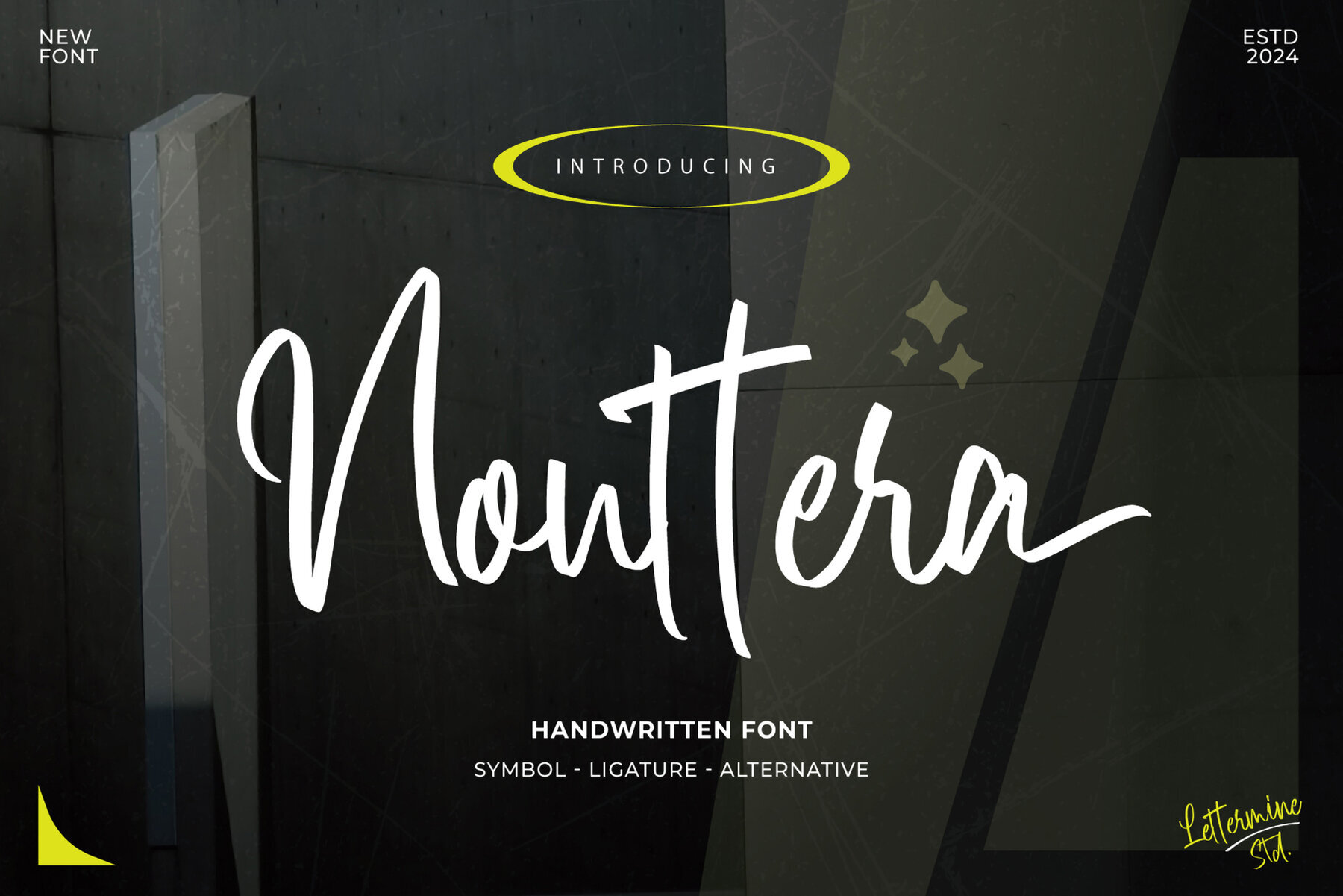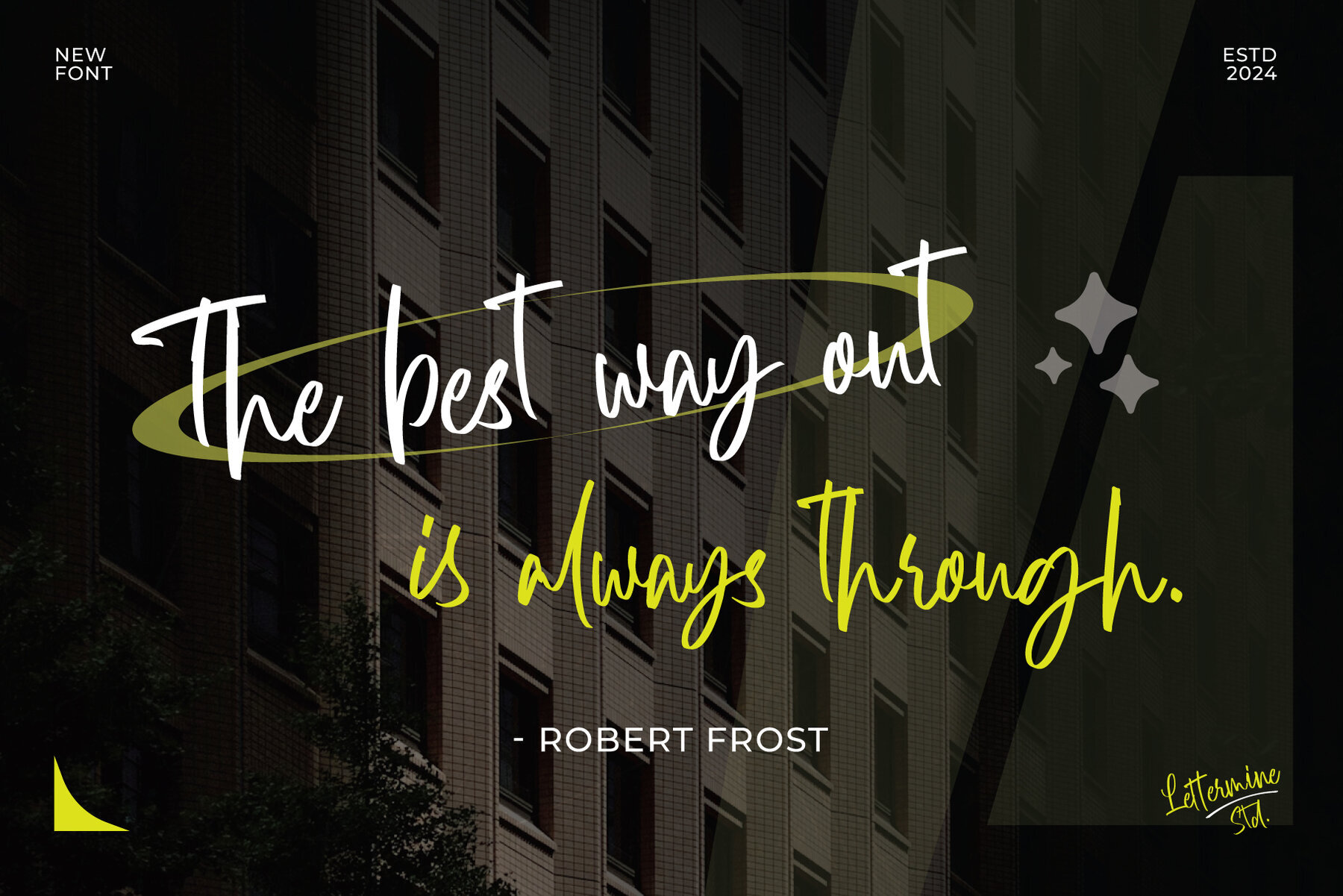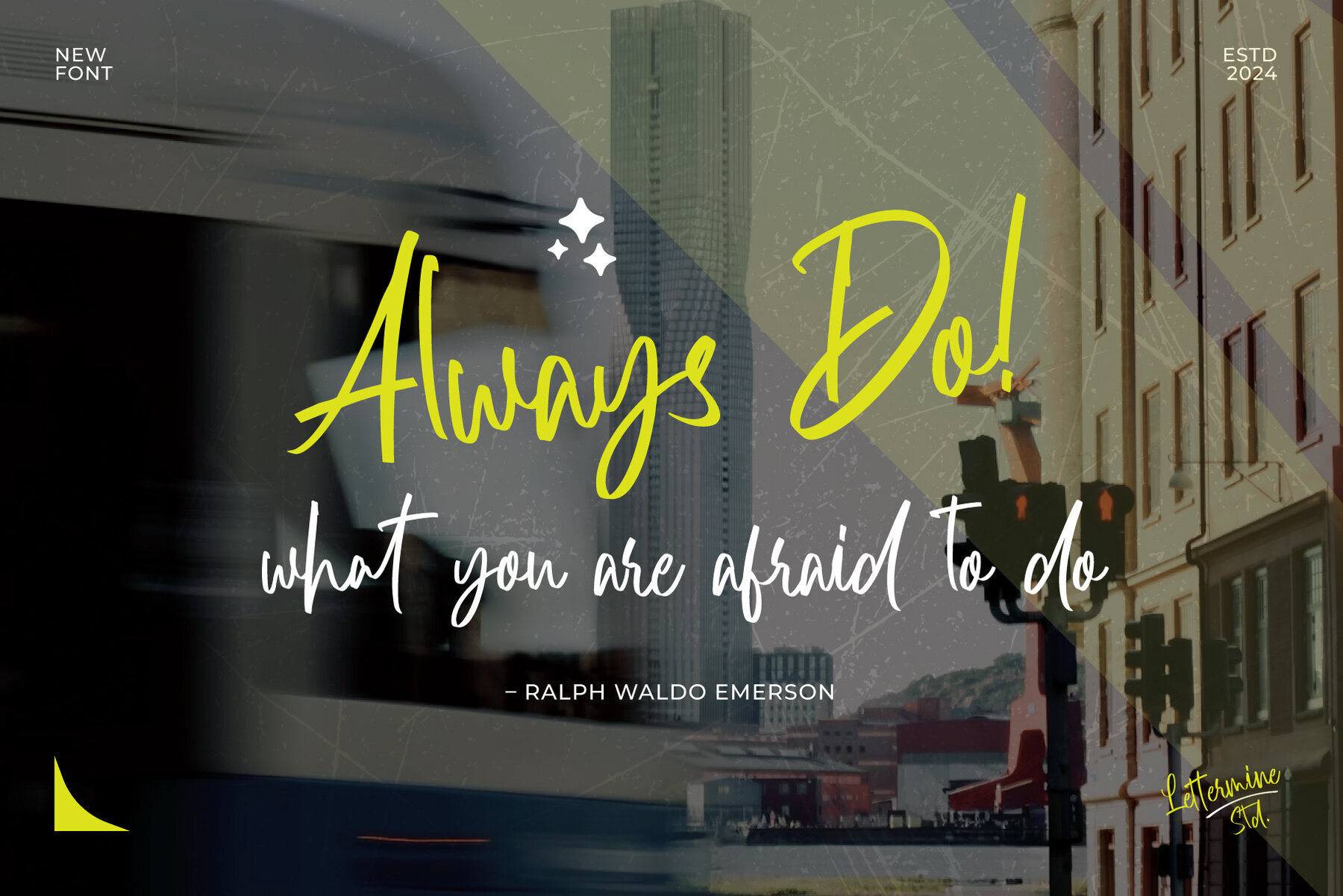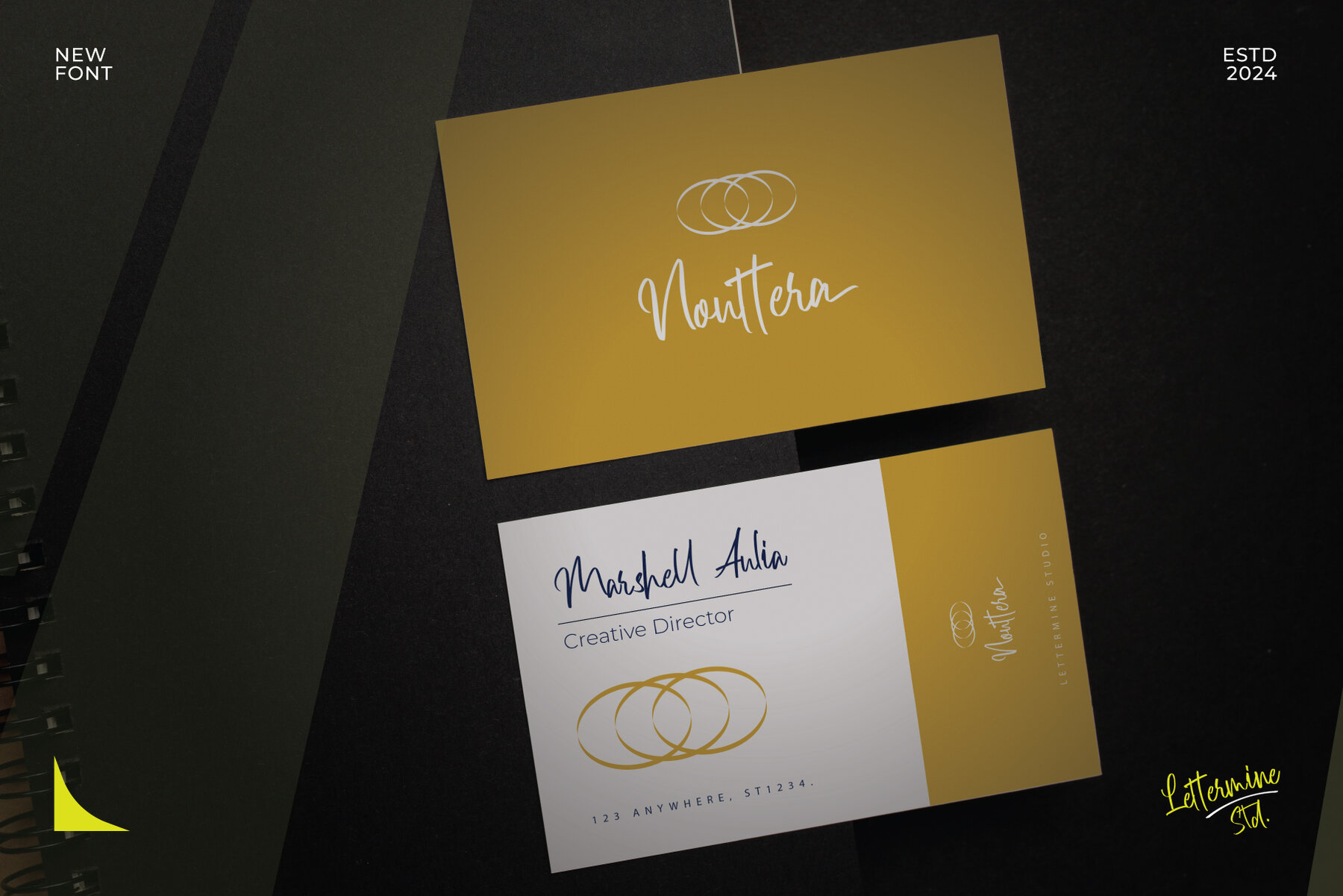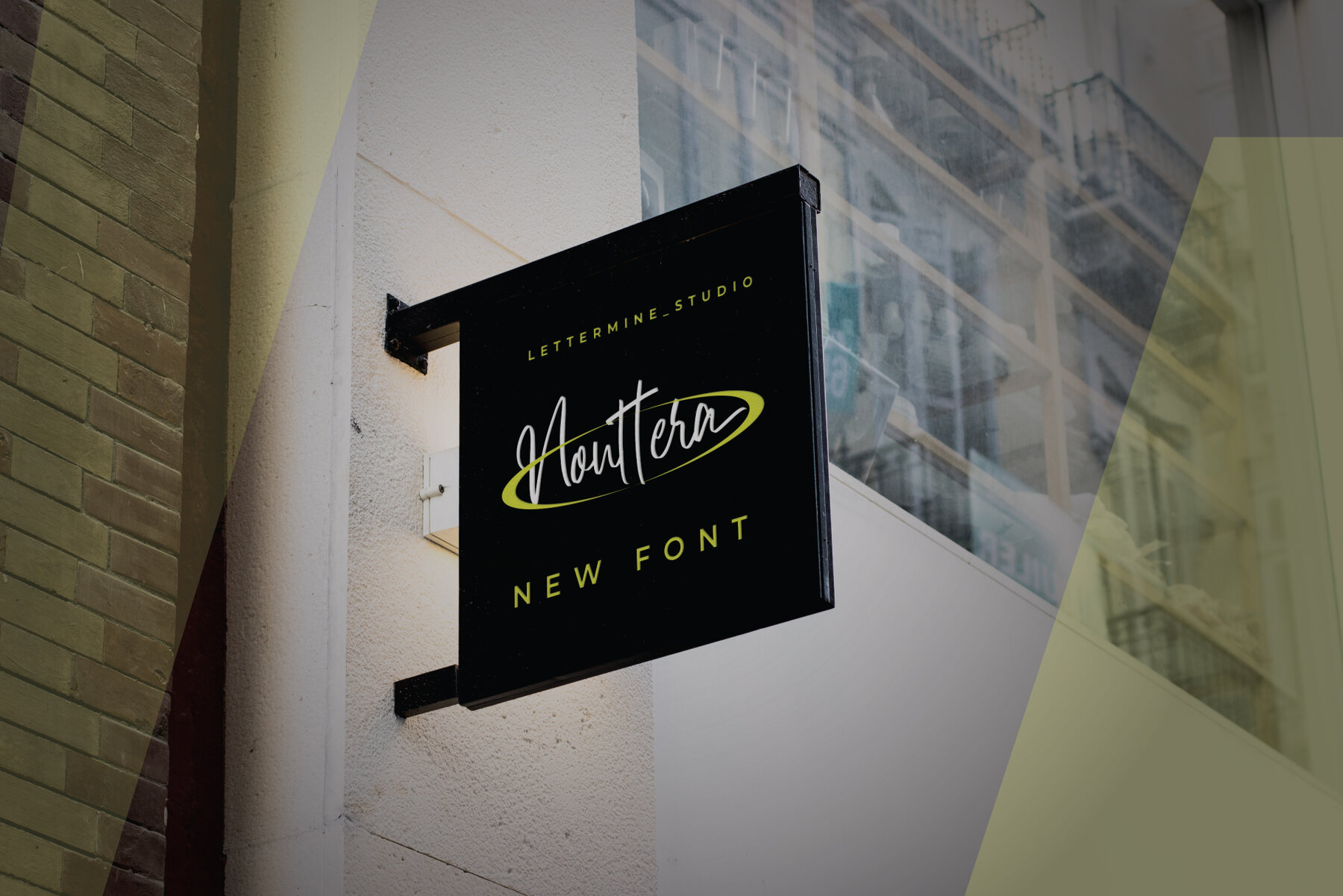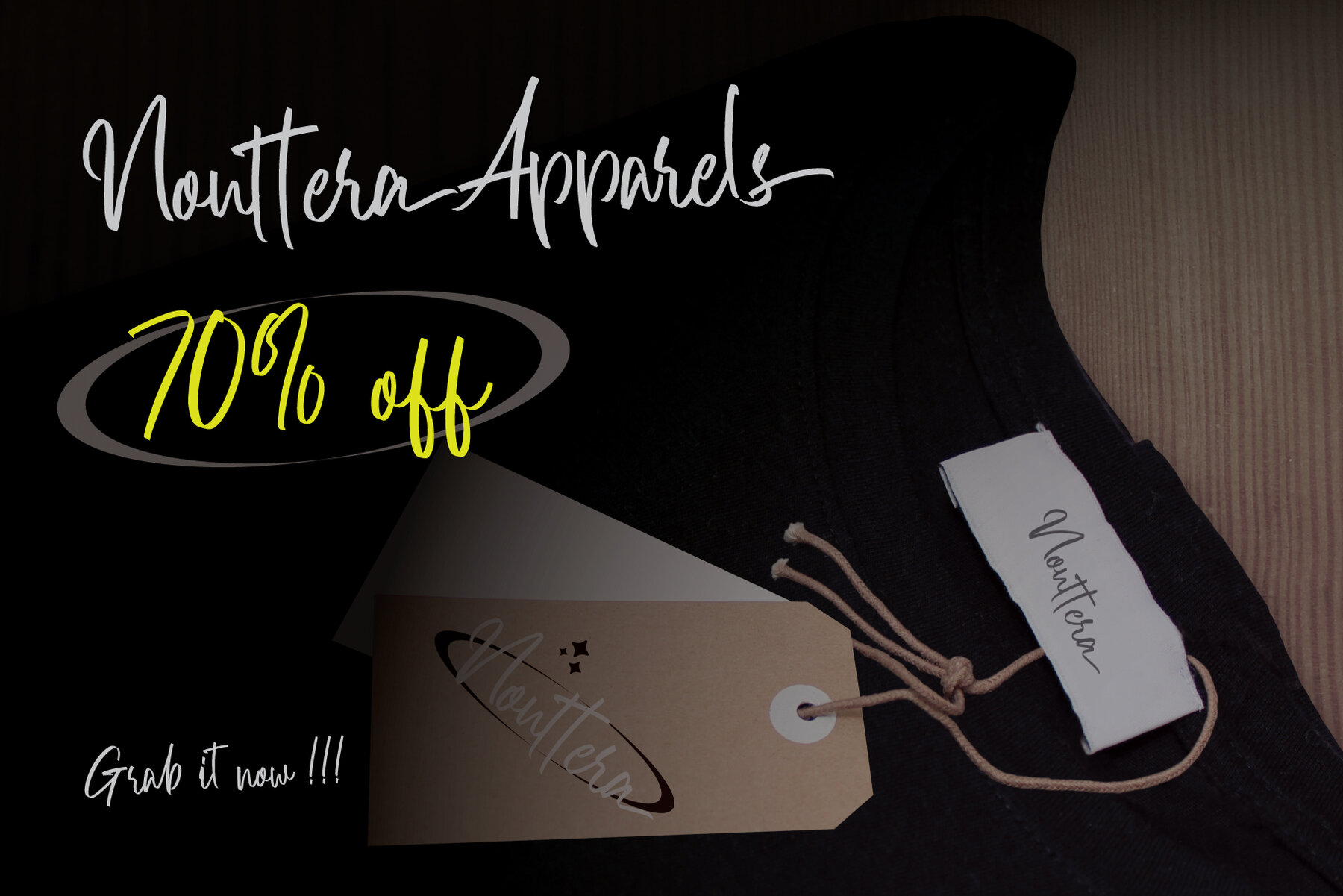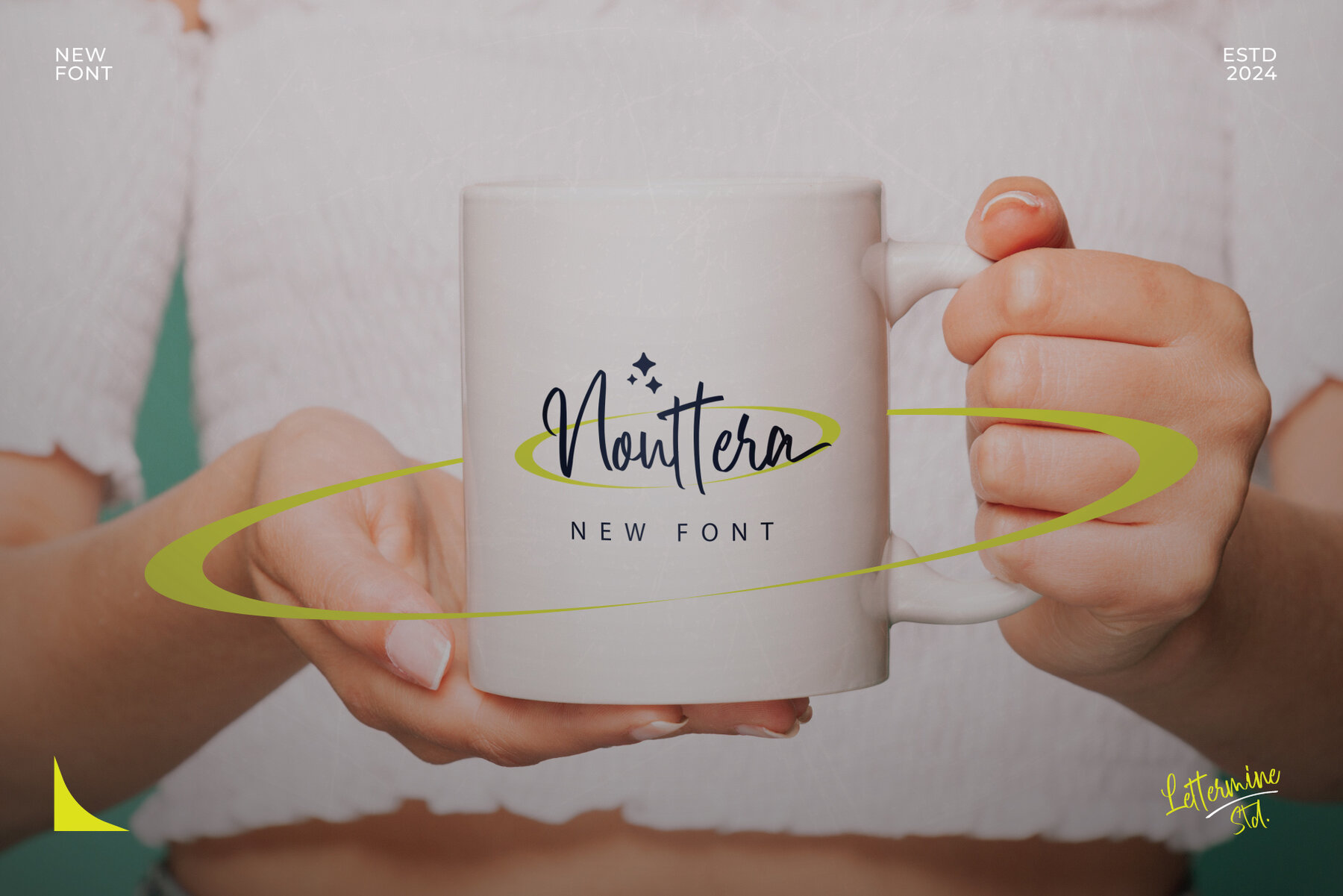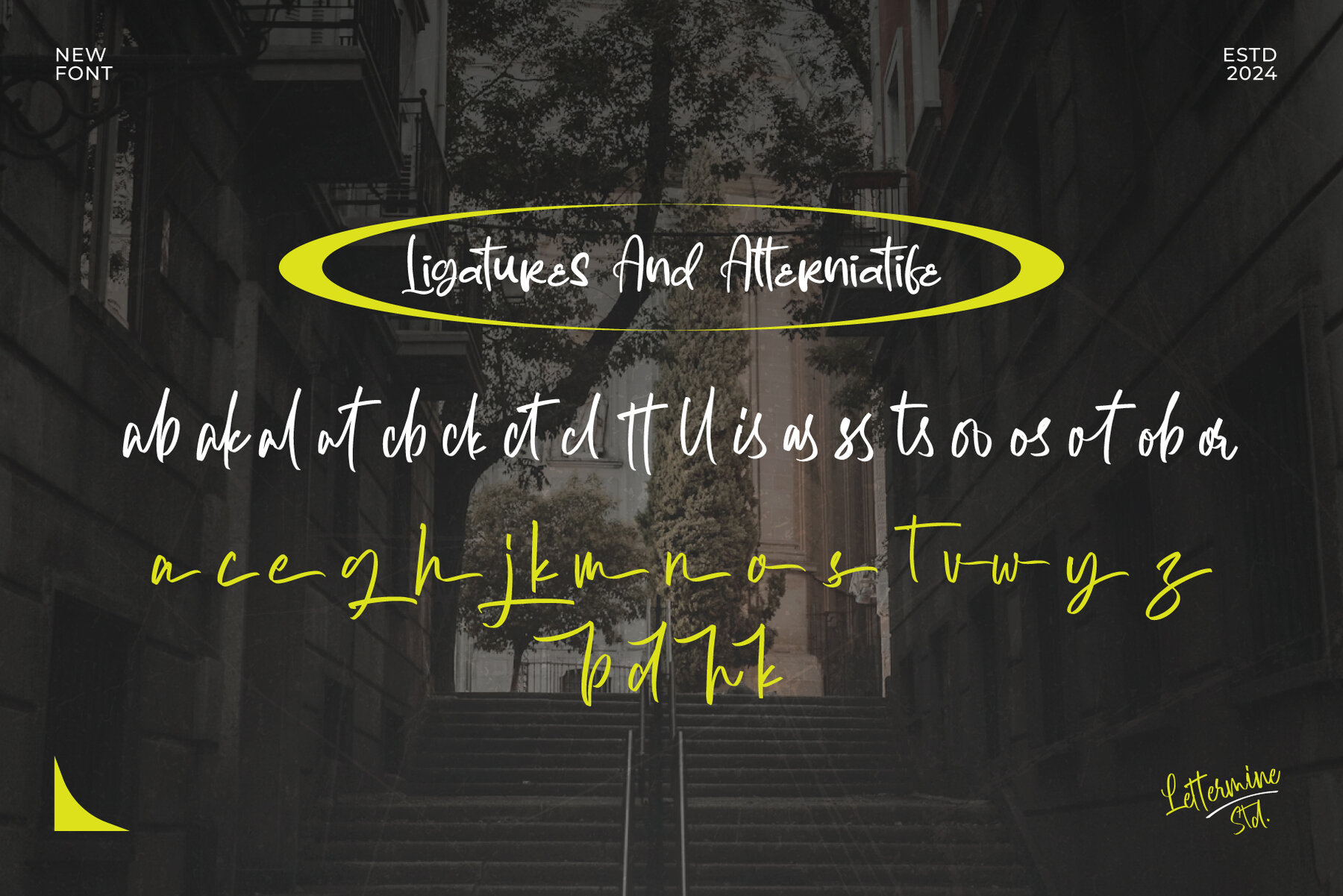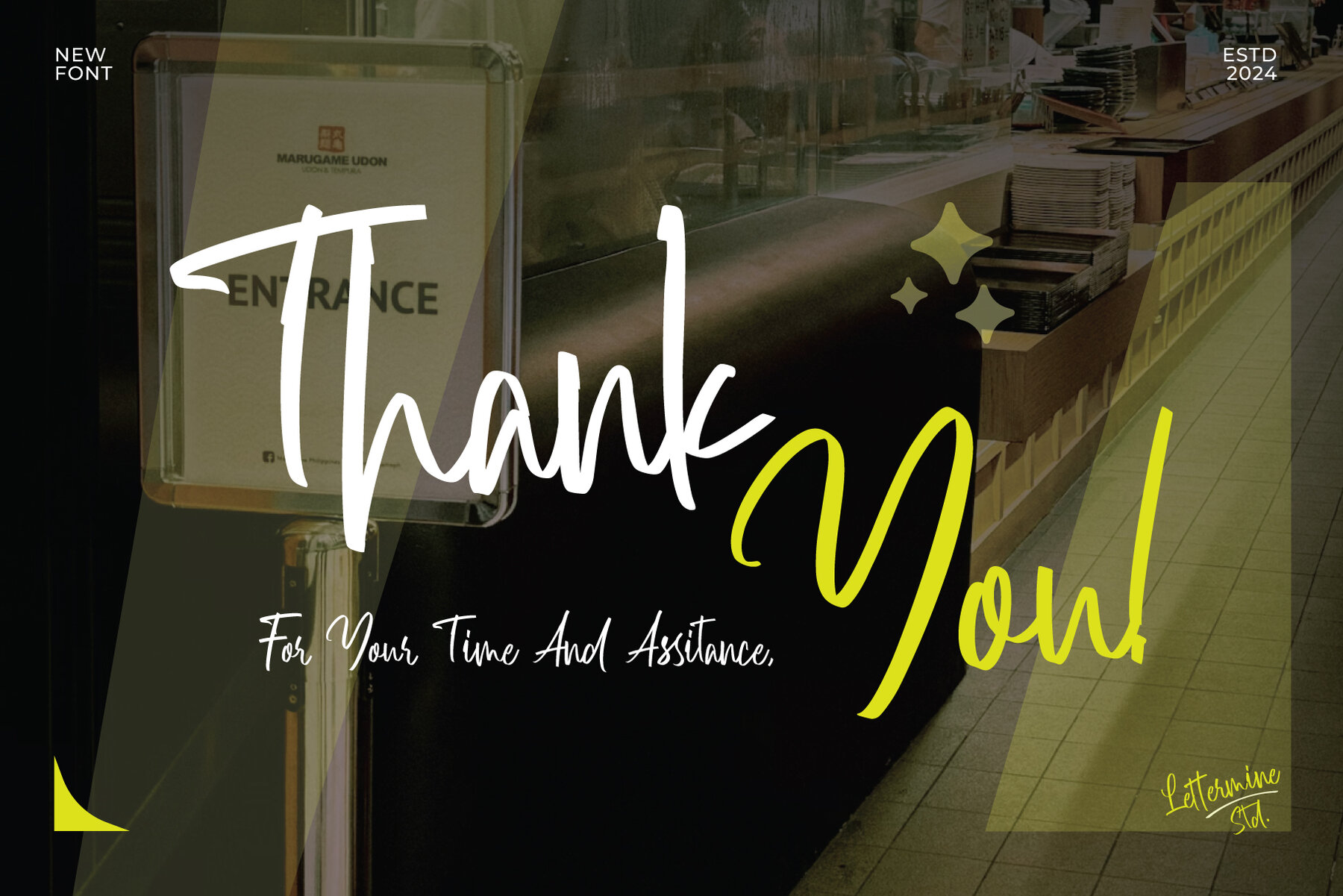
Nouttera Font
Nouttera Regular
Nouttera is a captivating brush script font designed to infuse creativity and passion into every project. Each letter features an authentic, hand-drawn charm that brings a dynamic and personal touch to your designs. Its bold, graceful curves create an expressive atmosphere that’s perfect for making a lasting impression. Whether you're working on a formal or casual design, this font's versatility allows for seamless integration and exceptional results.
Key features of Nouttera include versatile lettering where uppercase and lowercase letters naturally flow together, providing a blend of bold expression and soft, natural brush style. The multilingual support ensures inclusivity for global projects, expanding the reach of your creative work. With ligatures for seamless letter connections and alternative characters for added uniqueness and flair, Nouttera offers endless creative possibilities. Incorporate this vibrant script into your designs for a harmonious balance of artistry and impact.